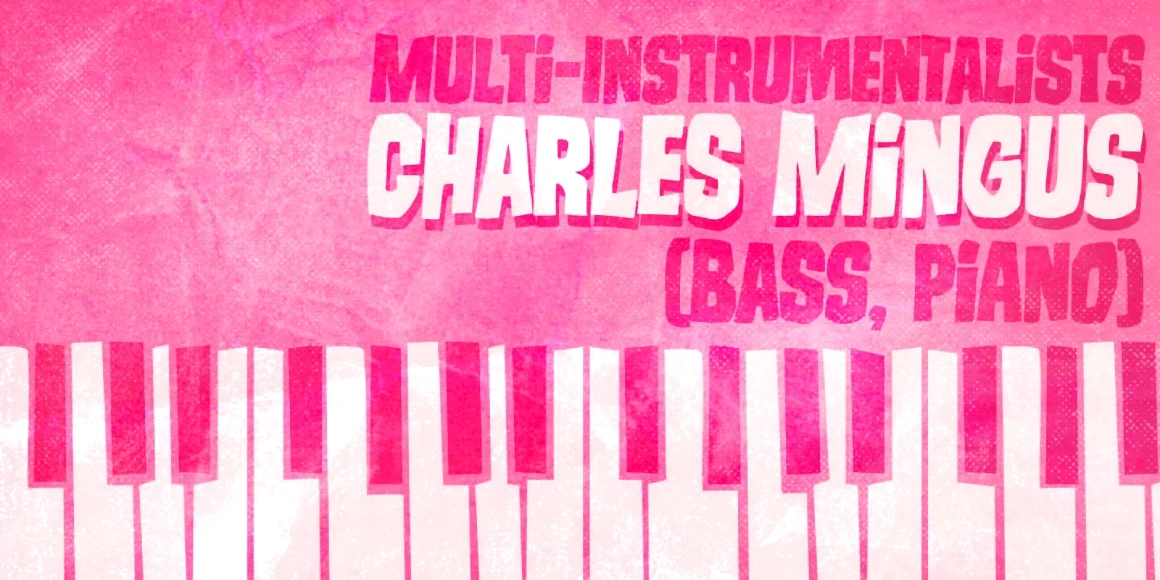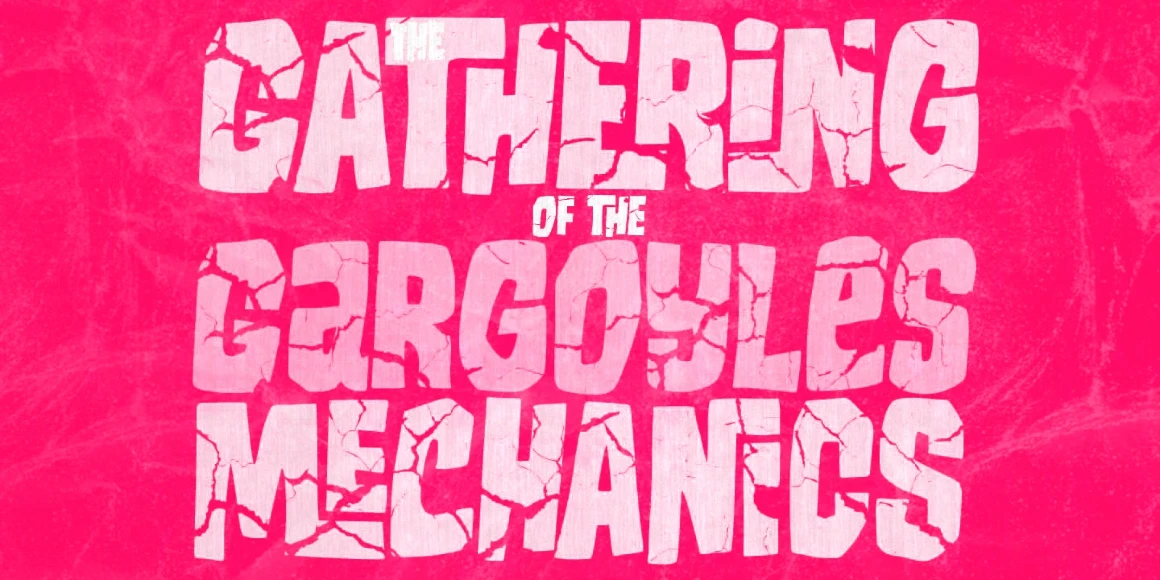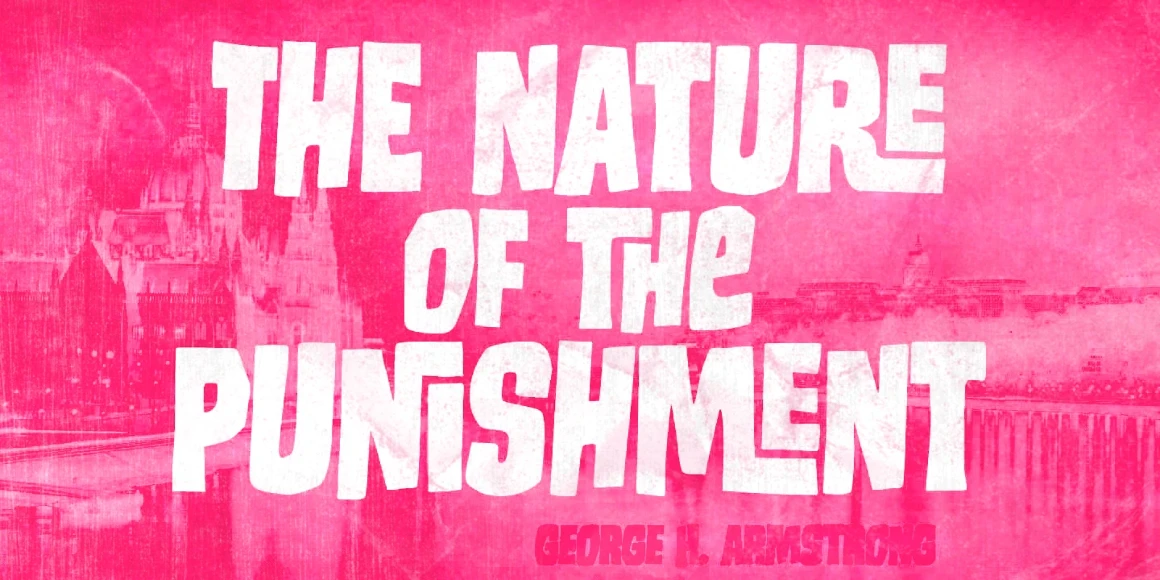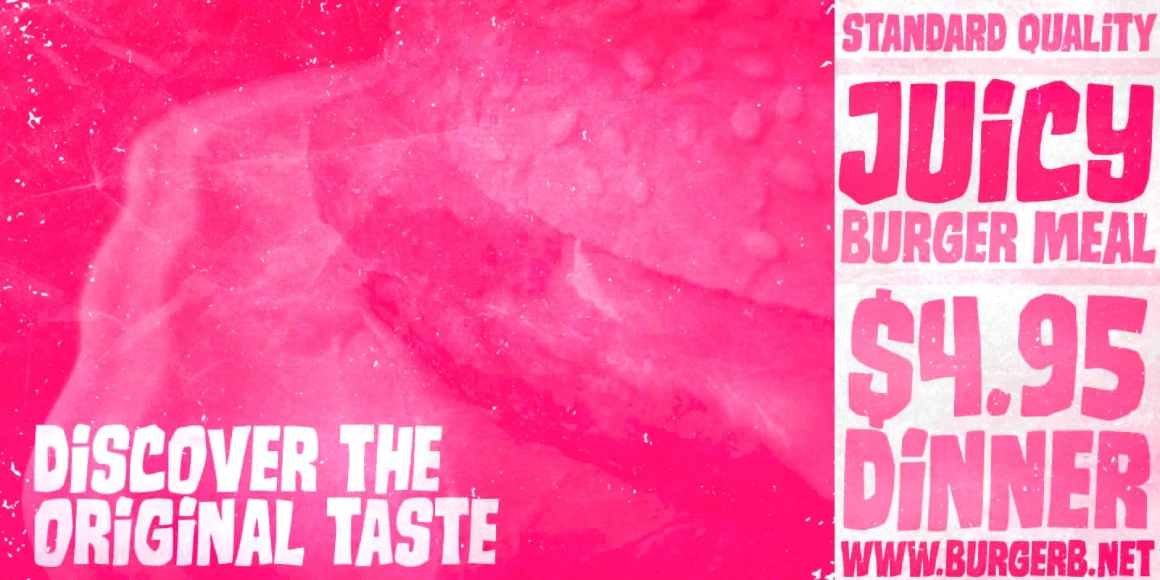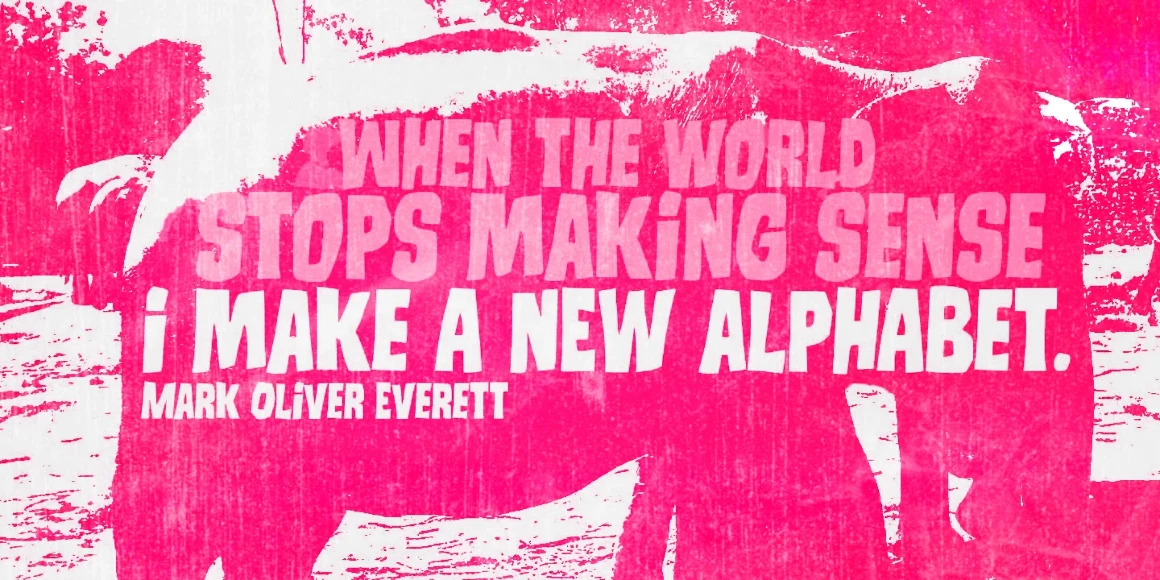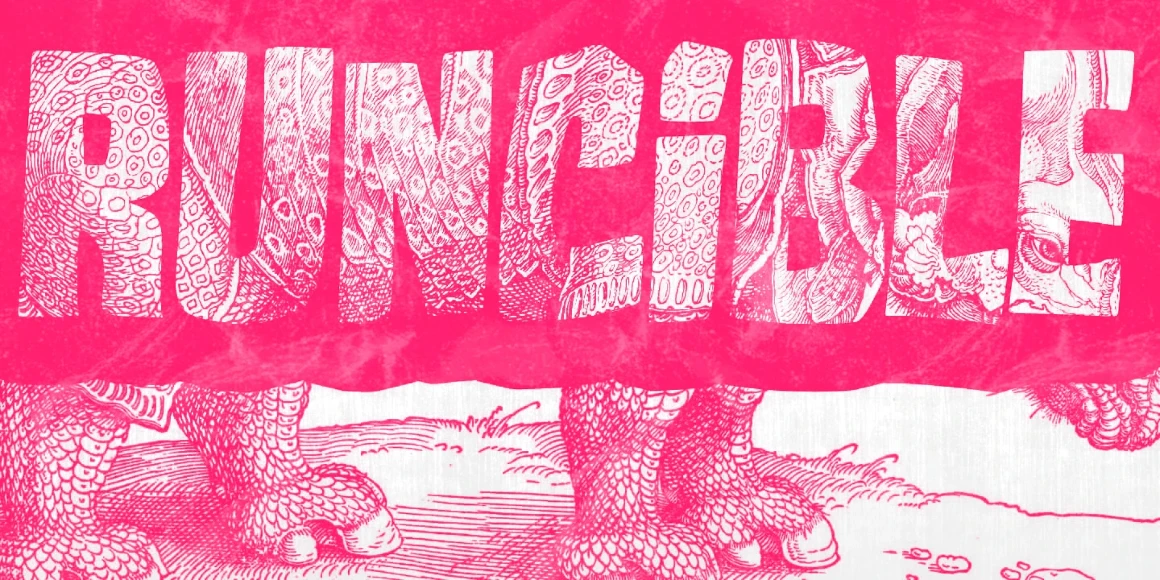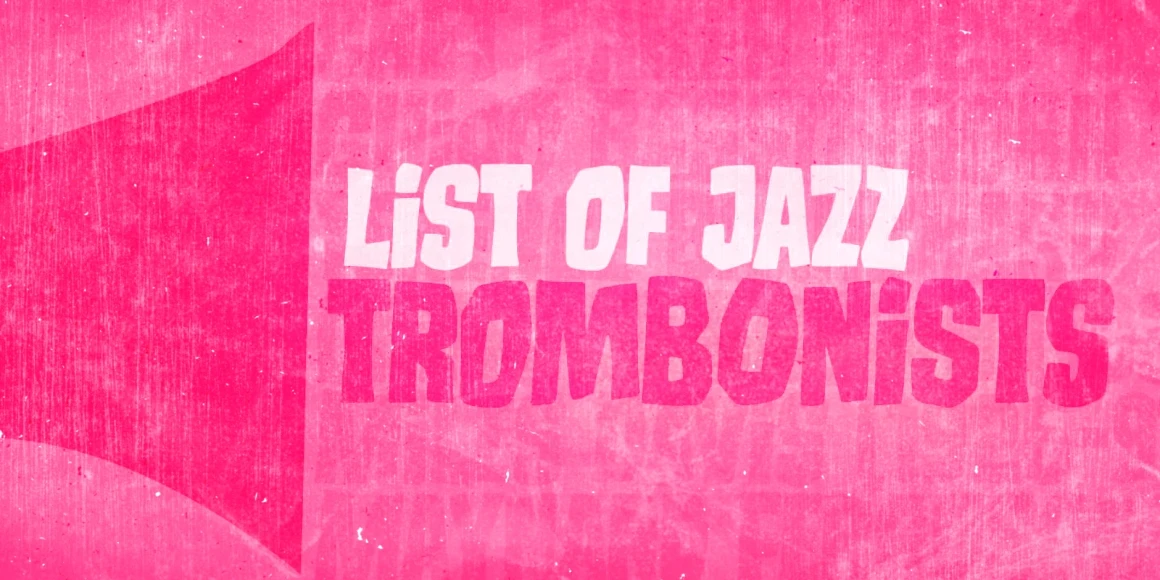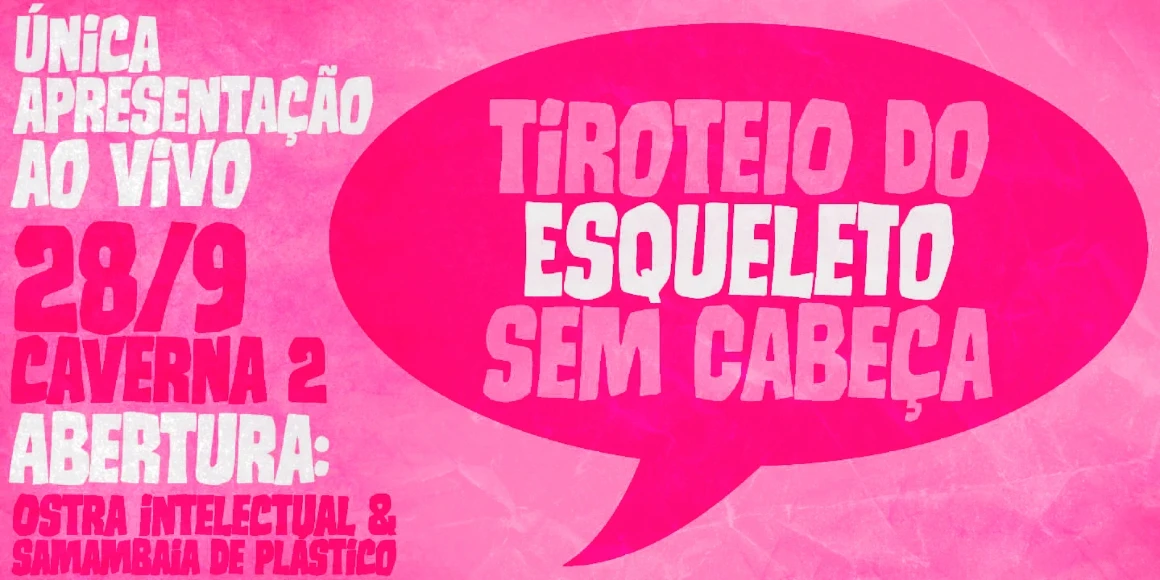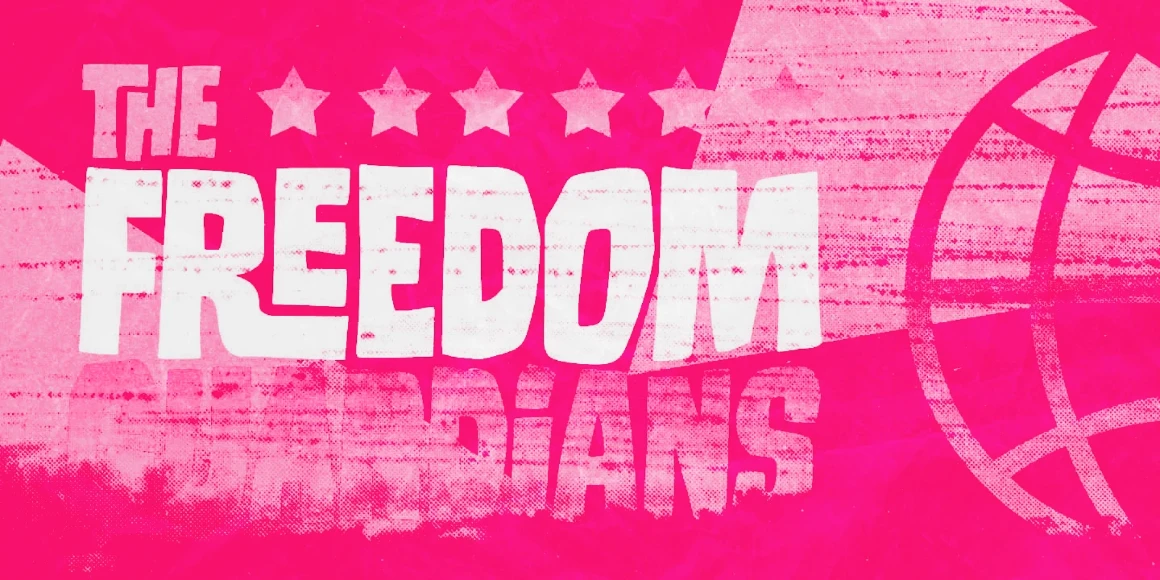
Runcible
Runcible Cleft
Runcible Regular
Runcible is a ruggedly dissonant all-caps display typeface. Two styles — solid and textured — with alternates to add a natural rhythm and remove repetition. To the trained eye of an avant-garde designer, it makes an abstract statement on a jazz music festival poster or personifies the zoo animals inside of an illustrated book, but this font family is also suited to gritty posters, album covers, and food packaging, too!